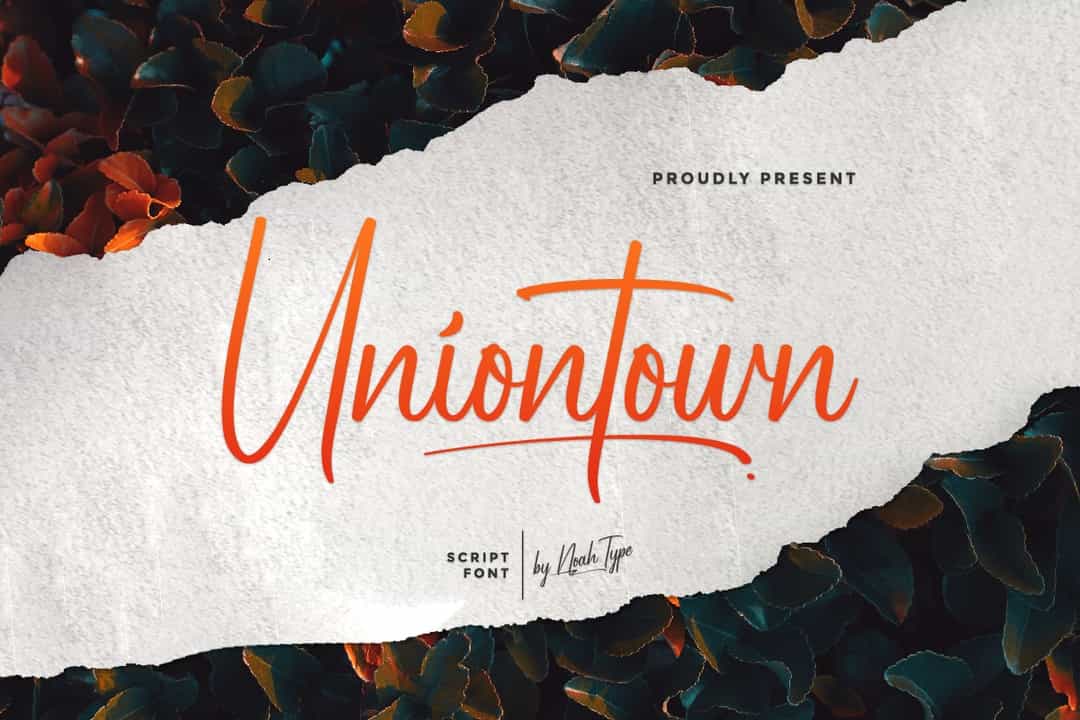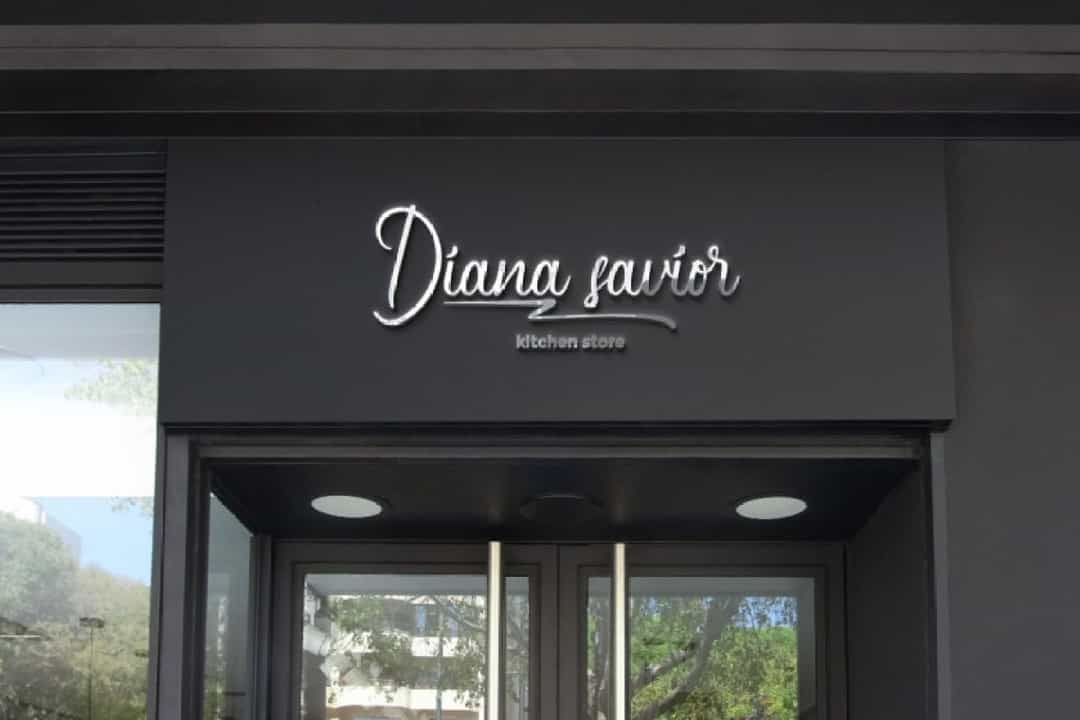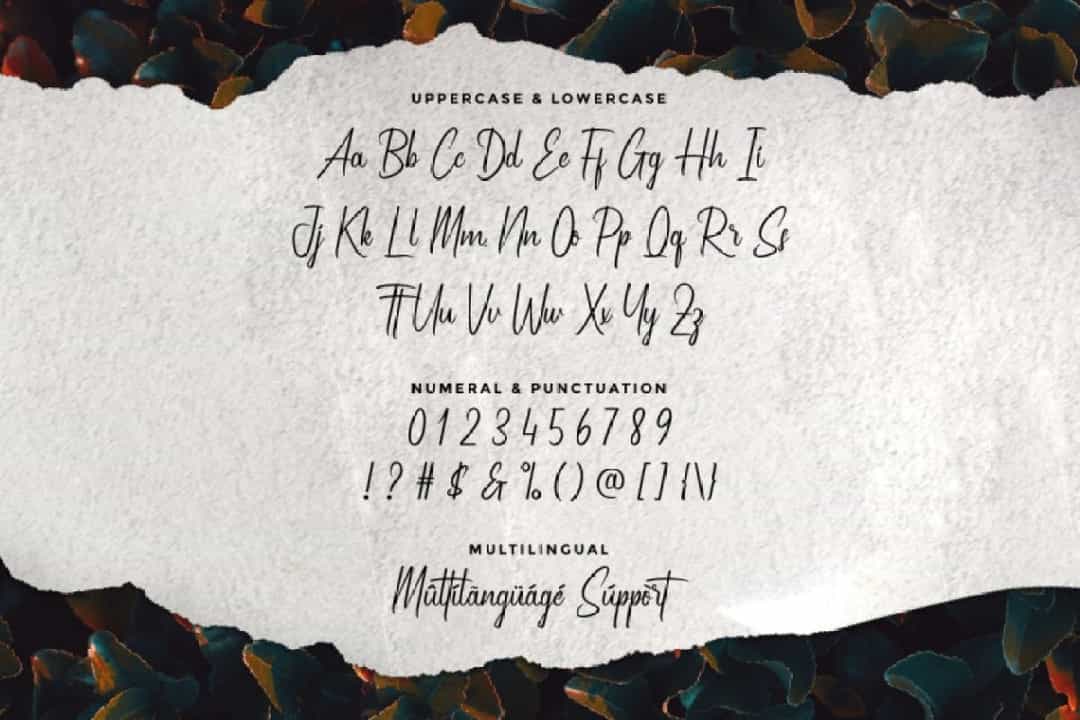
Uniontown can be described as an exquisite Calligraphy typeface with modern characters which are derived from the delicate ink handwriting, beautiful wedding calligraphy and minimalistic branding designs. All the characters in Uniontown where created by hand so that each of them looked like handwritten text as much as possible to make the most of the effectiveness of the illustration and to create the ideal pair for each character.